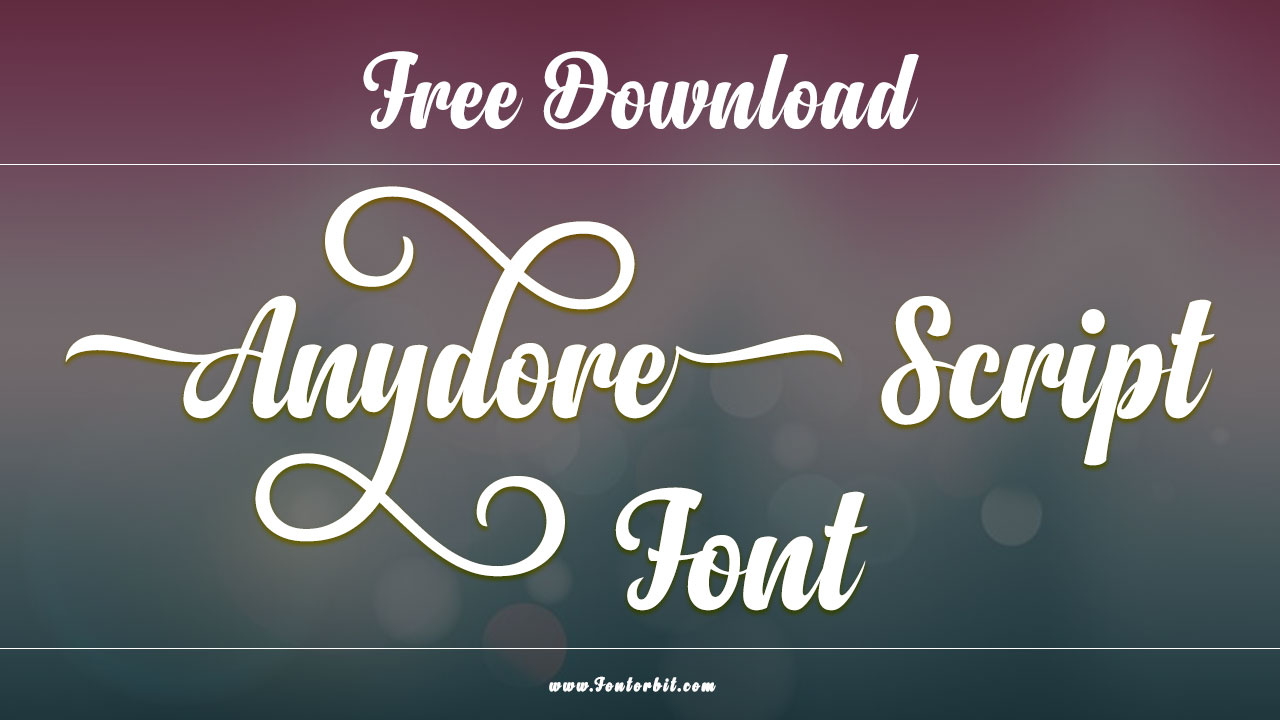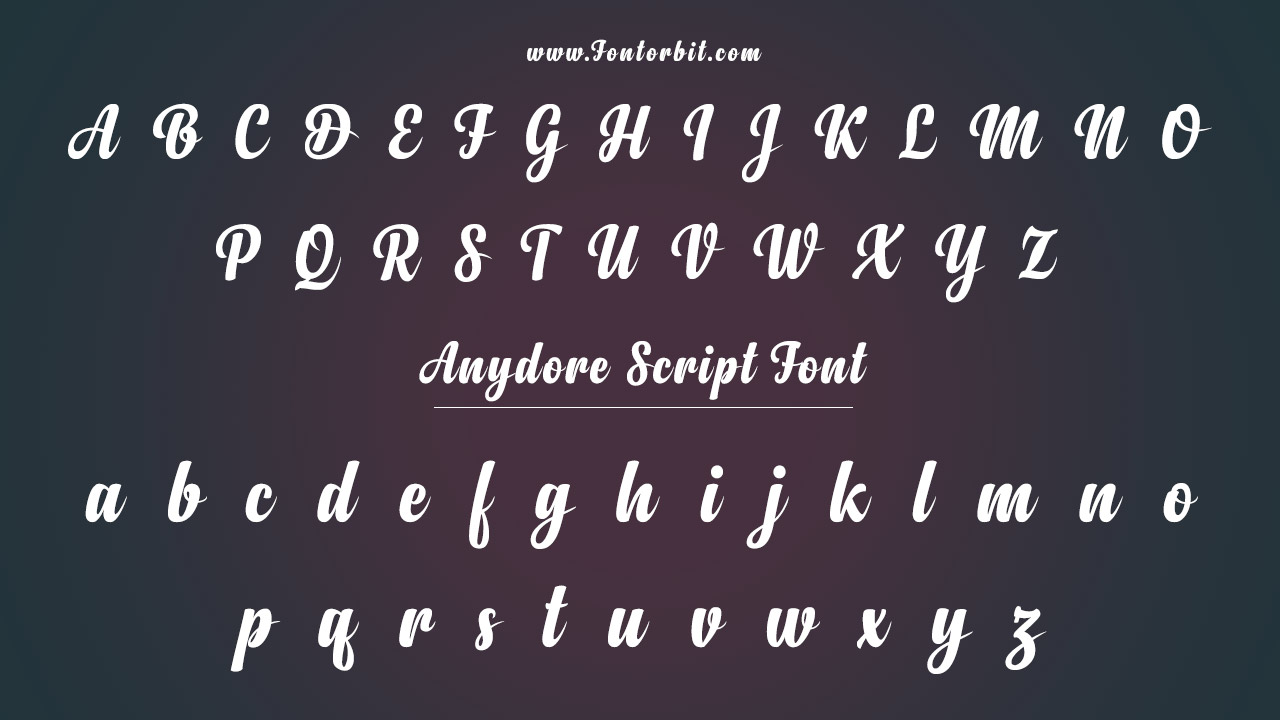
The Anydore Script Font is a beautiful and elegant handwritten font designed by Situjuh Nazara. Released under a free license for personal use, it is part of the 7NTypes family. This font is widely admired for its stylish, cursive design, which is perfect for a variety of creative projects.
Key Takeaways:
- Anydore Script Font is an elegant handwritten script designed by Situjuh Nazara.
- Features a flowing cursive design with alternate characters and stylistic sets for versatility.
- Ideal for logos, marketing materials, invitations, and social media graphics.
- Pairs well with serif, sans serif, calligraphy, brush, and vintage fonts for diverse design aesthetics.
- Perfect for both personal and commercial projects, adding a modern, stylish touch to any design.
Where Anydore Script Font Is In Use
- Design projects
- Printed materials
- Product packaging
- Websites and blogs
- Greeting cards
- Social media graphics
- Marketing campaigns
Font Pairing Options
Pair Anydore Script Font with these fonts for diverse design aesthetics:
- Serif Fonts: Pair it with classic serif fonts like Georgia or Times New Roman to create a balanced design.
- Sans Serif Fonts: Use with clean sans serif fonts like Arial or Helvetica for a modern, minimalistic feel.
- Calligraphy Fonts: Combine with other elegant calligraphy fonts for a more intricate and decorative design.
- Brush Fonts: Use Anydore Font alongside bold brush fonts for a dynamic, artistic project.
- Vintage Fonts: Try pairing it with retro fonts for a charming and nostalgic look.
The Anydore Script Font is a versatile handwritten font that brings personality and flair to any project. With its beautiful, flowing script and multiple stylistic sets, it is perfect for both personal and commercial use. Whether you’re creating logos, marketing materials, or digital content, Anydore ensures your designs stand out with a modern, elegant touch.
4.Can I Pair Anydore With A Serif Font?
Yes, pairing it with serif fonts like Times New Roman works well for a balanced look.
9.Can I Use Anydore For Retro Designs?
Yes, Anydore pairs beautifully with retro fonts for a vintage, nostalgic design.